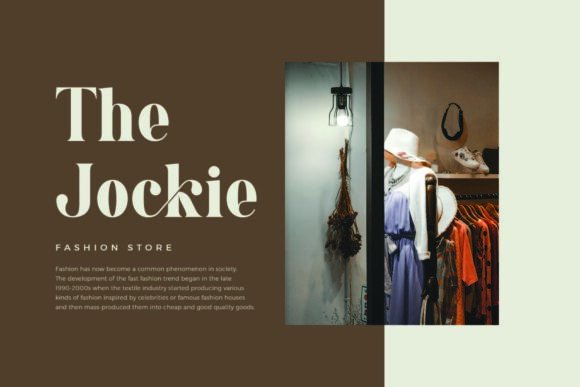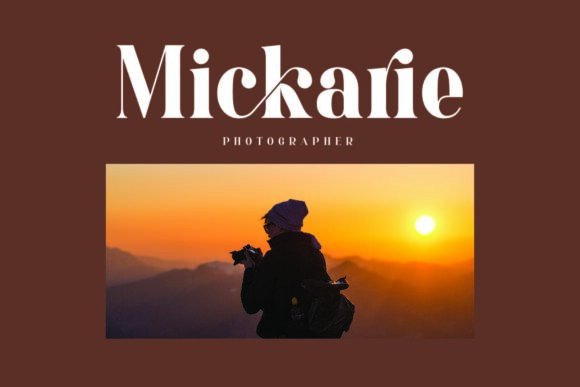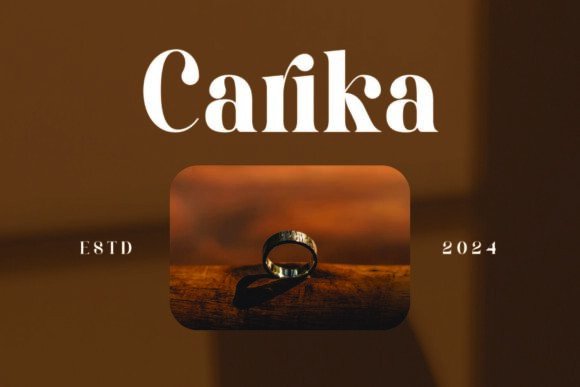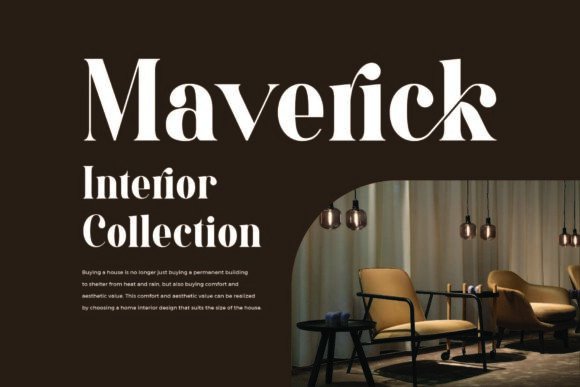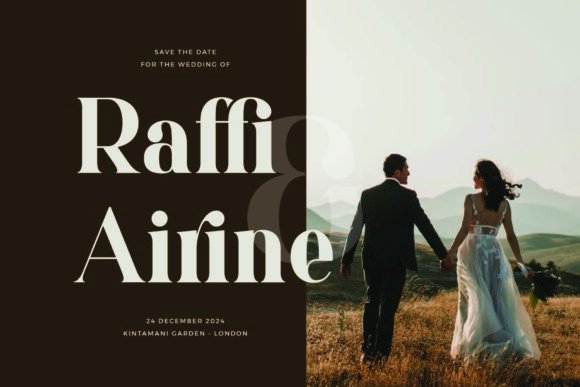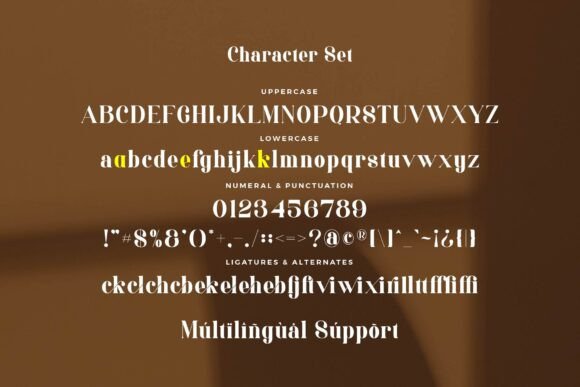
The Designer’s Delight: Avieka Font
Avieka Font: A Stylish Ligature Typeface
The Avieka Font is a stylish ligature typeface inspired by famous minimalist logos. It’s perfect for designing templates, brochures, videos, advertising branding, logos, and more. With its clean and modern aesthetic, it’s no wonder that Avieka has become a favorite among designers.
- ✅ Elegant and modern design
- ✅ Ligature feature for a unique look
- ✅ Highly versatile for various design projects
- ✅ Easy to read and understand
- ⚠️ Limited availability of language support
- ⚠️ Some users may find the font too minimalist for certain projects
The Designer Inspiration Behind Avieka Font
The Avieka Font was inspired by the works of famous minimalist designers, who emphasized simplicity and clean lines in their creations. The font’s designer aimed to capture the essence of these iconic logos and translate it into a versatile typeface.
| Font Name | Avieka Font |
| What is the Avieka Font best used for? | The Avieka Font is best used for designing templates, brochures, videos, advertising branding, logos, and more. |
| Is the Avieka Font suitable for body text? | While the Avieka Font is elegant and modern, it may not be the best choice for body text due to its minimalist design. It’s better suited for headlines and titles. |
| Does the Avieka Font support multiple languages? | The Avieka Font may have limited language support, so it’s best to check with the font’s creator or documentation for specific details. |